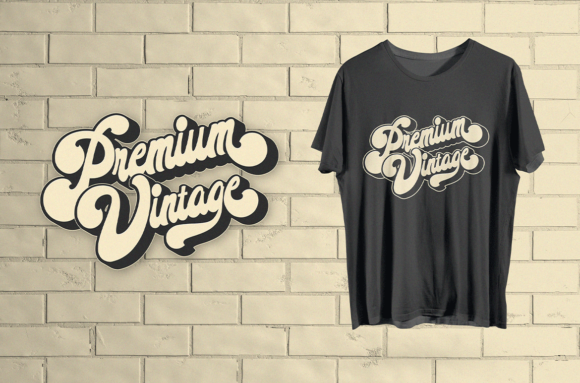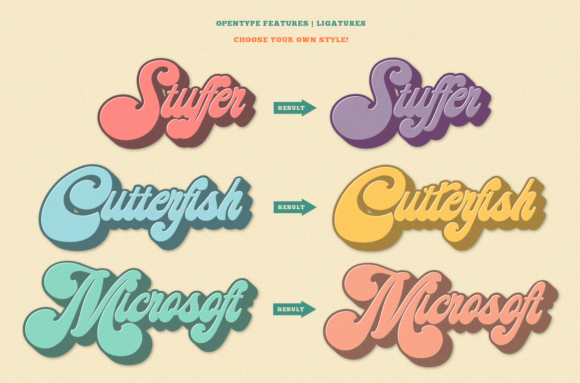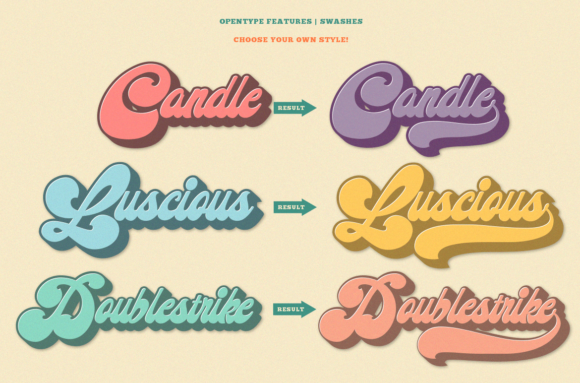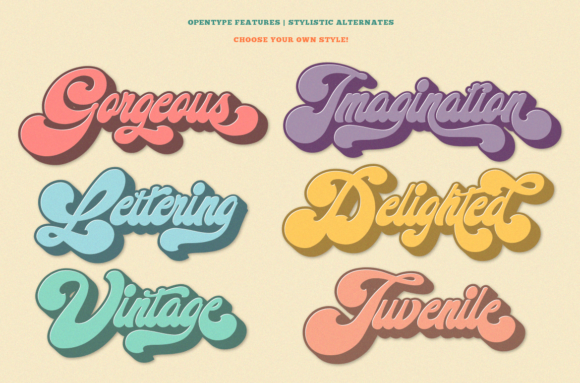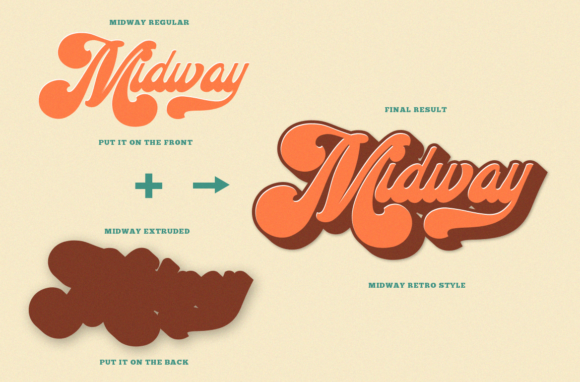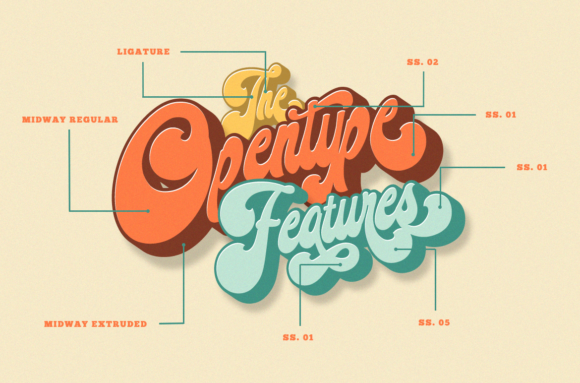
Introduction to Midway Font
Do you remember the thrill of rummaging through your grandparents’ attic, uncovering old photographs and dusty trinkets that spark memories of a bygone era? That’s the kind of nostalgic magic that the Midway Font embodies. This enchanting display font is designed to transport you back to a time when design was all about whimsy and charm.
As a designer, you know that the right font can make or break a project. That’s why we’re excited to introduce you to the Midway Font, a high-quality design resource that’s sure to add a touch of retro sophistication to your creative project. With its PUA encoding, accessing all the glyphs and swashes is a breeze, making it a valuable asset for any design enthusiast.
Key Features of Midway Font
- High-quality design resource for creative projects, perfect for those looking for a unique and stylish font.
- Unique characteristics include a bold and modern aesthetic, making it perfect for headings, titles, and other prominent text elements.
Honest Review: Midway Font
I recently stumbled upon the Midway Font while searching for a unique design resource to enhance my creative project. After giving it a try, I must say I’m impressed by its quality and versatility. ✨ The font’s clean and modern design makes it perfect for a wide range of applications, from digital displays to printed materials.
The font is available for free download, which is a huge plus for designers on a budget. What I appreciate most about the Midway Font is its high-quality design, which ensures that it looks great on any background, including a transparent background. This feature makes it an excellent choice for designers who want to create visually appealing and professional-looking designs.
- Unique and modern design
- Perfect for digital and printed materials
- No bold or italic variations available
- May not be suitable for very formal or traditional designs
Overall, I’m quite pleased with the Midway Font and would definitely recommend it to fellow designers. Its modern design, high-quality, and free download make it a valuable resource for any creative project. With some limitations in mind, I believe the Midway Font can be a great addition to any designer’s toolkit.
Tips for Getting the Most Out of Midway Font
Use the Midway Font with a transparent background to create a clean and modern design.
Experiment with different font sizes and styles to add visual interest to your design.
The Midway Font is perfect for a variety of creative projects, including:
Brochures and flyers
Business cards and letterheads
Website headers and footers